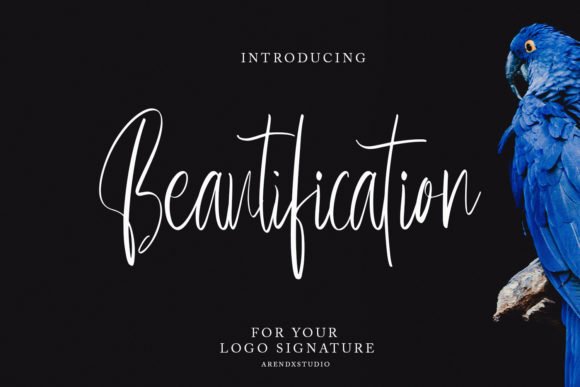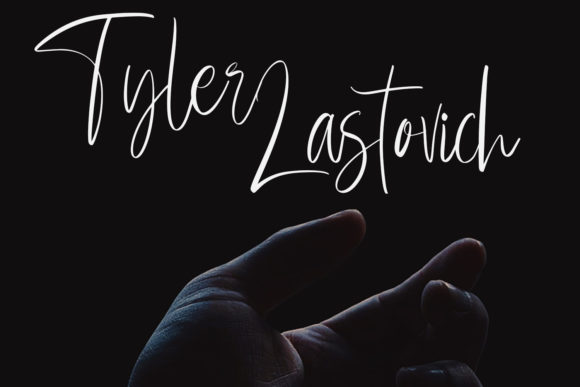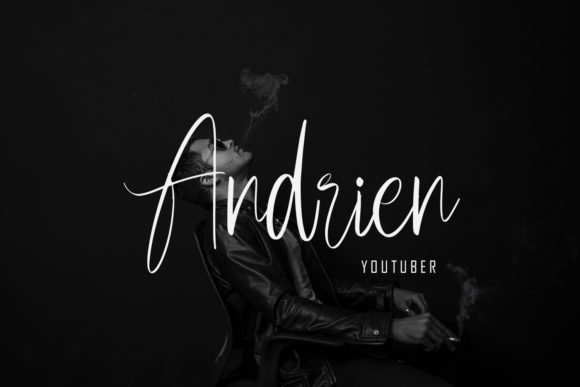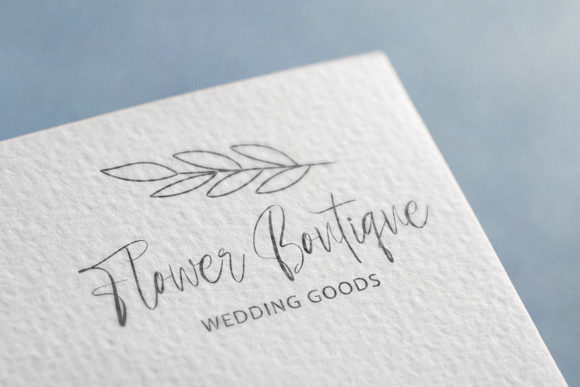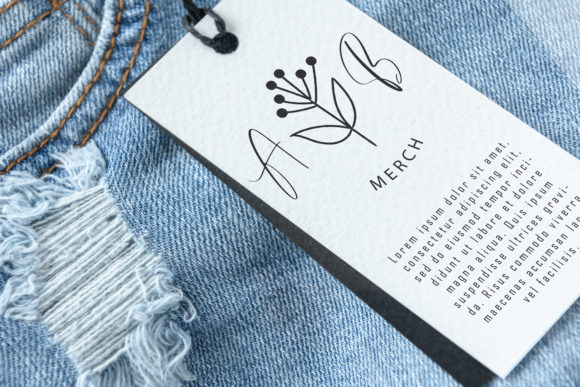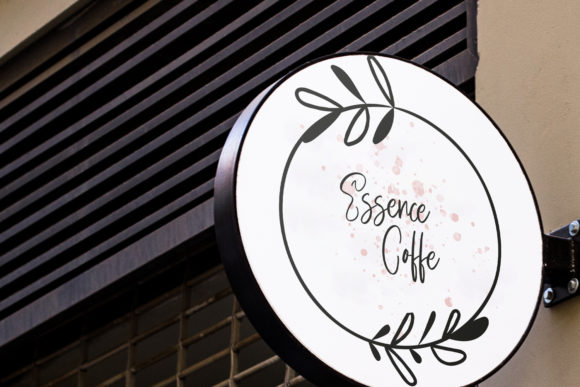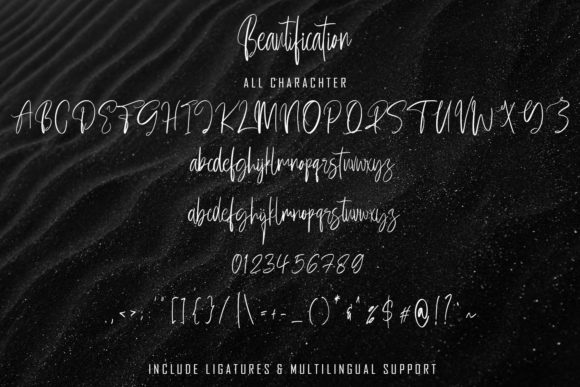
Discovering the Perfect Brush Stroke: The Allure of the Beautification Font
Have you ever been in a creative moment, staring at a blank page, waiting for the perfect word or phrase to spark your imagination? For designers, this moment can be both exhilarating and intimidating. But what if you had the perfect tool to elevate your work and make that moment truly unforgettable?
Enter the Beautification Font, a beautifully crafted handwritten font that embodies the essence of elegance and sophistication. Its calligraphic influences and contemporary feel make it the perfect addition to any design project. Whether you’re working on a letterhead, title, or stationery, the Beautification Font will add a touch of refinement and sophistication that’s hard to resist.
As a designer, you know that the right font can make all the difference in bringing your vision to life. The Beautification Font is a valuable addition to any designer’s toolkit, offering a unique blend of classic and modern style that’s sure to impress.
Key Features of Beautification Font
- Unique Characteristics: The font features a unique blend of elegant and modern design elements, making it perfect for creating visually appealing and sophisticated text layouts.
Beautification Font Review
Overall, I’m quite impressed with the Beautification Font, but as with any font, it’s not perfect. Here are my thoughts:
- Clean and elegant design: The font is incredibly well-designed, with a beautiful balance of curves and lines that make it perfect for body text.
- Great for branding: The font has a unique charm that can elevate your brand’s visual identity.
- High legibility: The font is highly legible, even at small sizes, making it perfect for digital applications.
- Not suitable for headings: While the font is great for body text, it may not be the best choice for headings due to its relatively small x-height.
- Limited language support: The font may not support all languages, which could be a limitation for global brands.
- Not ideal for bold text: The font’s bold weight may not be as effective as other fonts, making it less suitable for emphasis.
Overall, I’d give the Beautification Font 4 out of 5 stars. It’s a beautiful, elegant font that’s perfect for body text, branding, and digital applications. However, its limitations in headings, language support, and bold text make it less versatile than other fonts.
Common use cases for Beautification Font include creating elegant titles, headings, and body text for websites, social media, and marketing materials.